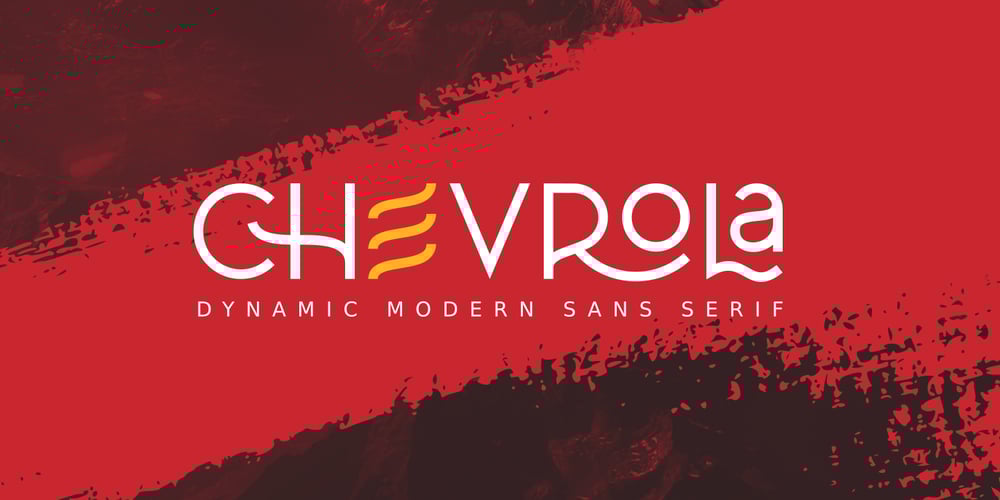
Al Chevrola Font Family was designed by Linggar Sundoro and published by Aluyeah Studio. Al Chevrola contains 4 styles and family package options. Al Chevrola is a dynamic modern sans serif. Strong, with curves and an elegant touch. It is a rounded, geometric near-monoline construction sans serif typeface with display details which gives it modern, simple, elegant, chic, cool, and strong vibes. Each style and character looks amazing in large headlines. Al Chevrola works great in branding, logos, magazines, packaging. FEATURES:4 WeightOpenType supportEasy to use (with special combination)Multilingual support (15 languages)PUA EncodedThanks for checking out Al Chevrola. I really hope you enjoy using it!If you have any questions I’d be more than happy to answer them, just send me a message.